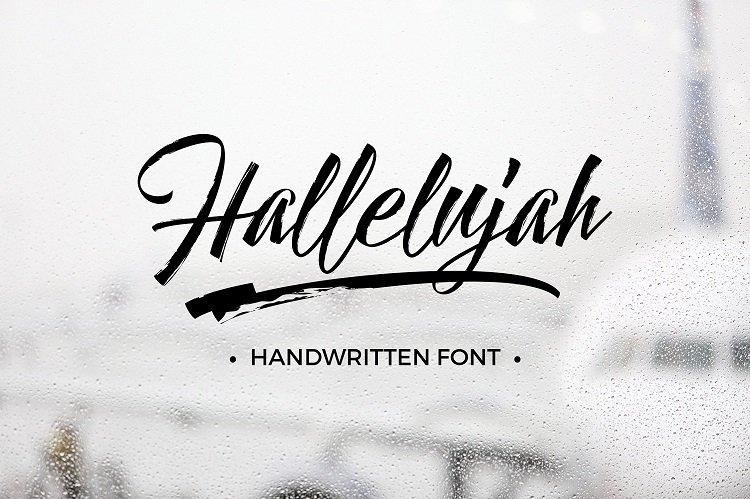
Hallelujah Script Font
Introducing Hallelujah, font script to make your text look beautiful. Ideal for your branding, logo, header, poster, apparel, packaging, business cards, etc.